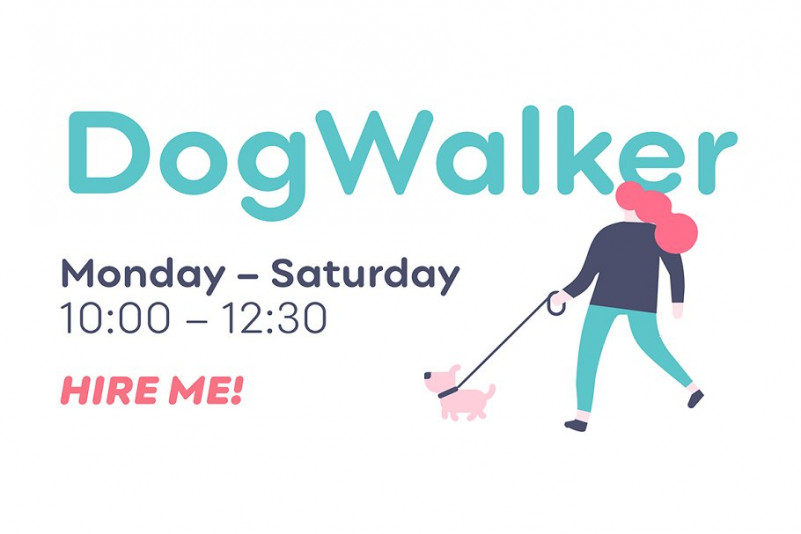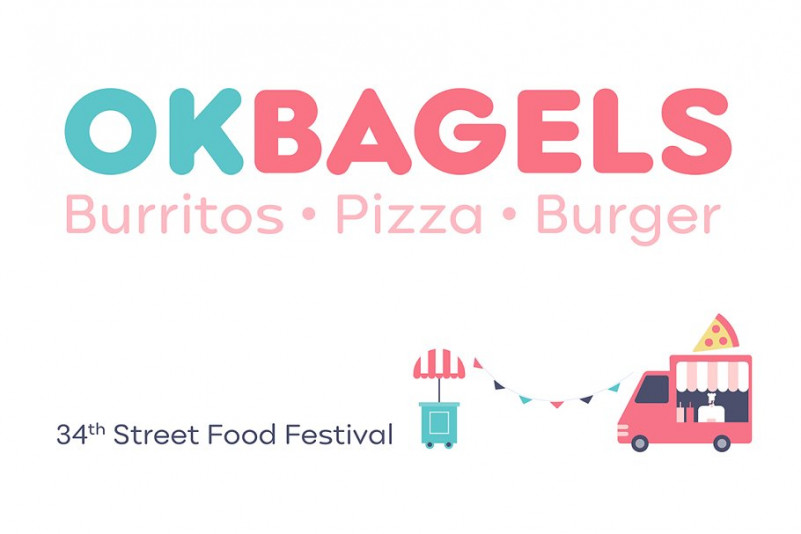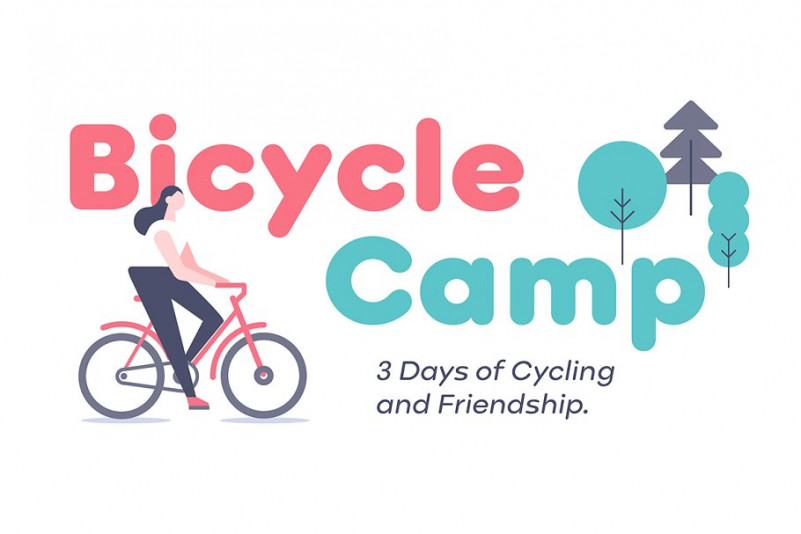
Point Soft Font Family
Introducing Point™ Soft. It’s designed and shared by NDISCOVER. Point Soft Font Family is more than the rounded edges version of Point™, it is a reinterpretation of what a geometric soft font should look like. Clean, simple, and above all: huggable. Point™ Soft conveys that warm and soft feeling.
With 20 styles it gives you a lot of versatility (From Hairline to Black). It has Extended Latin and Cyrillic support, old style, lining and tabular figures and much more.